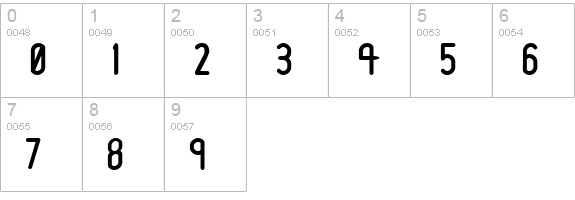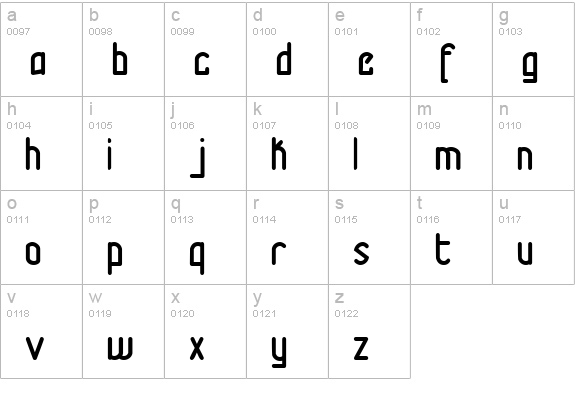
TM Tramway Normal Font Details
TM Tramway Normal is the standard, neutral variant in the TM typeface family \xE2\x80\x94 well suited to general body text, paragraphs, and standard typographic work.
TM Tramway Normal font is a versatile and modern typeface that is perfect for various design projects. Its clean and legible design makes it suitable for both digital and print media, making it a great choice for websites, branding, advertising, and more. This font features a balanced combination of smooth curves and sharp edges, giving it a contemporary and sophisticated look. With its medium weight and clear letterforms, TM Tramway Normal is easy to read even at smaller sizes, making it ideal for body text, captions, and headlines alike. One of the best things about TM Tramway Normal font is that it is freely available to download at FontsMarket.com. Whether you are a professional designer or someone looking to add a touch of elegance to your personal projects, this font is a fantastic choice. Its versatility and timeless appeal make it suitable for a wide range of design styles and purposes. So why wait? Download TM Tramway Normal font today and elevate your designs to new heights. With its sleek and modern aesthetic, this font is sure to make a lasting impression on your audience. Don't miss out on the opportunity to use this incredible typeface for free – head over to FontsMarket.com now and start creating stunning designs with TM Tramway Normal font.